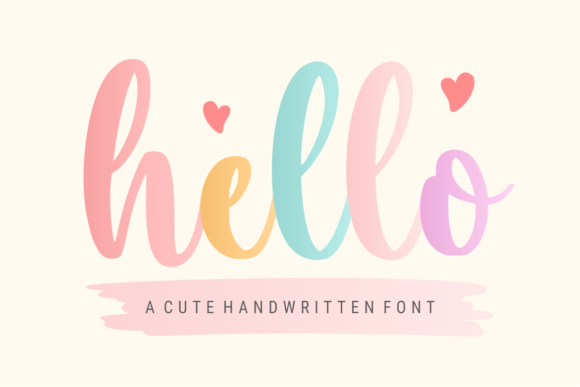
Say Hello to the font of your dreams!
Are you looking for a font that’s cute, stylish and delicate? Look no further than Hello font! This script font family is the perfect choice for a range of design projects. Whether you’re creating greeting cards, headlines or wedding invites, Hello font will make your work stand out. This font was created by jinanstd and it’s perfect for a wide range of applications, including:- Greeting cards
- Headlines
- Wedding themes
- Christmas
- Birthdays
- Quotes
- Stickers
- Overlays on images